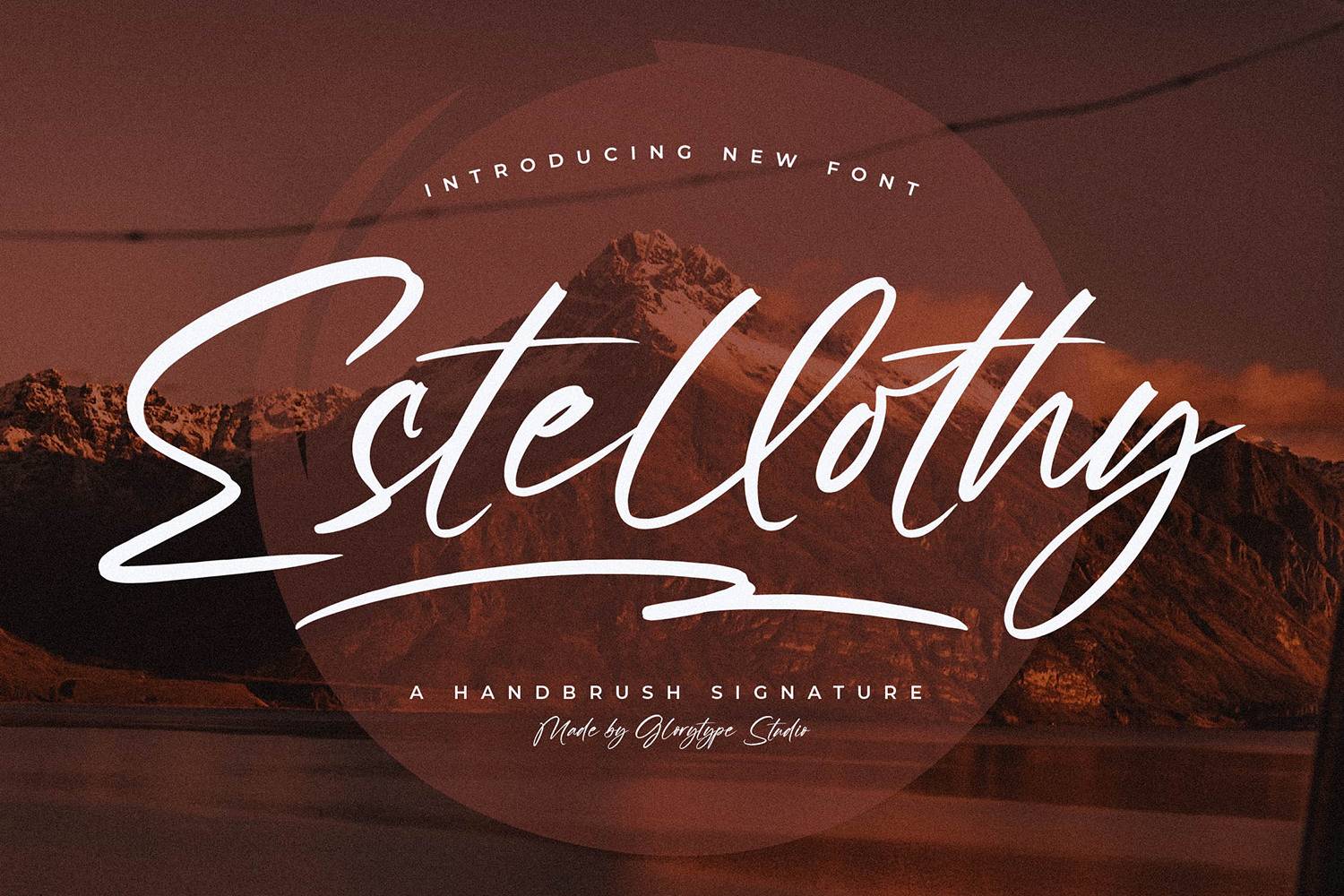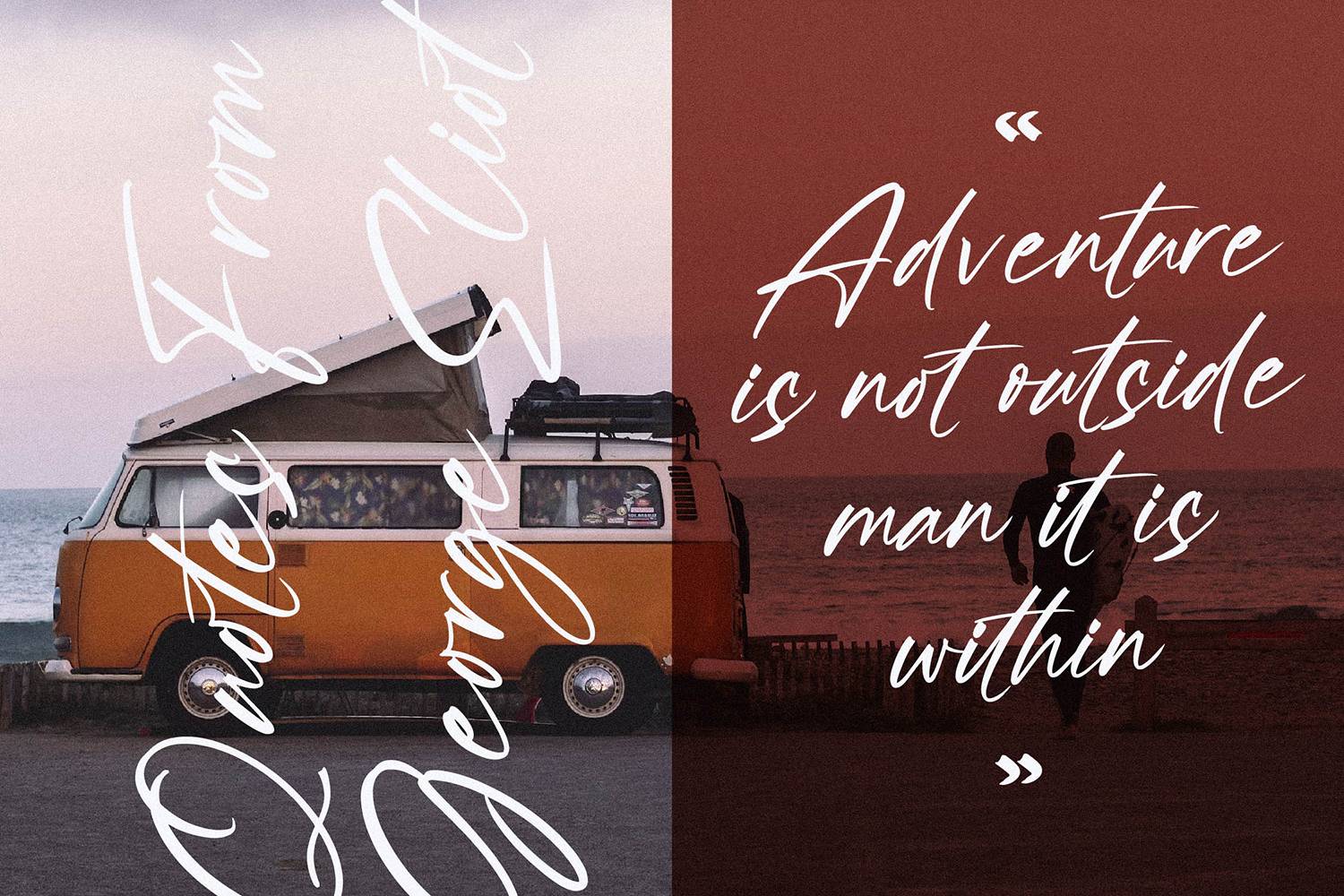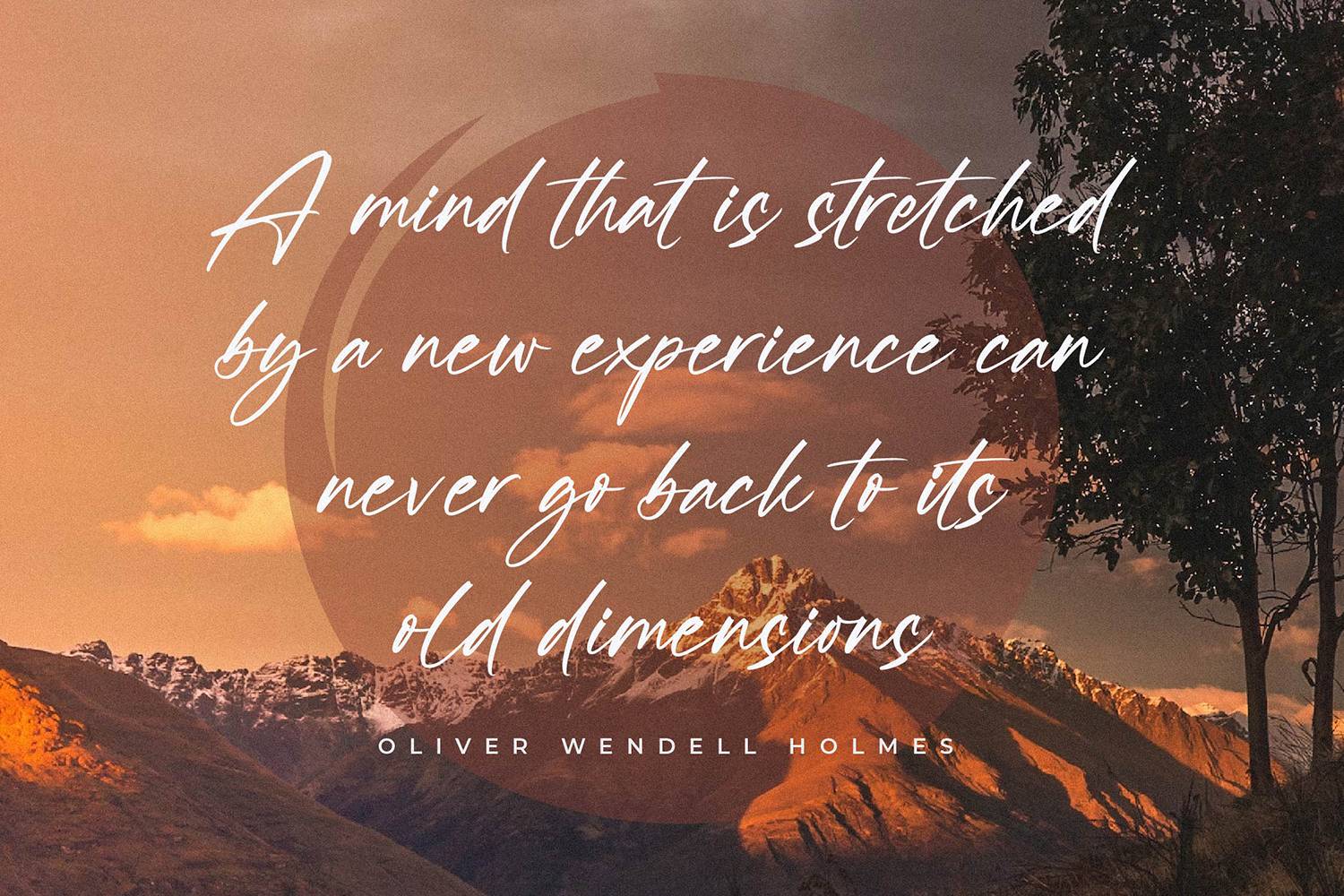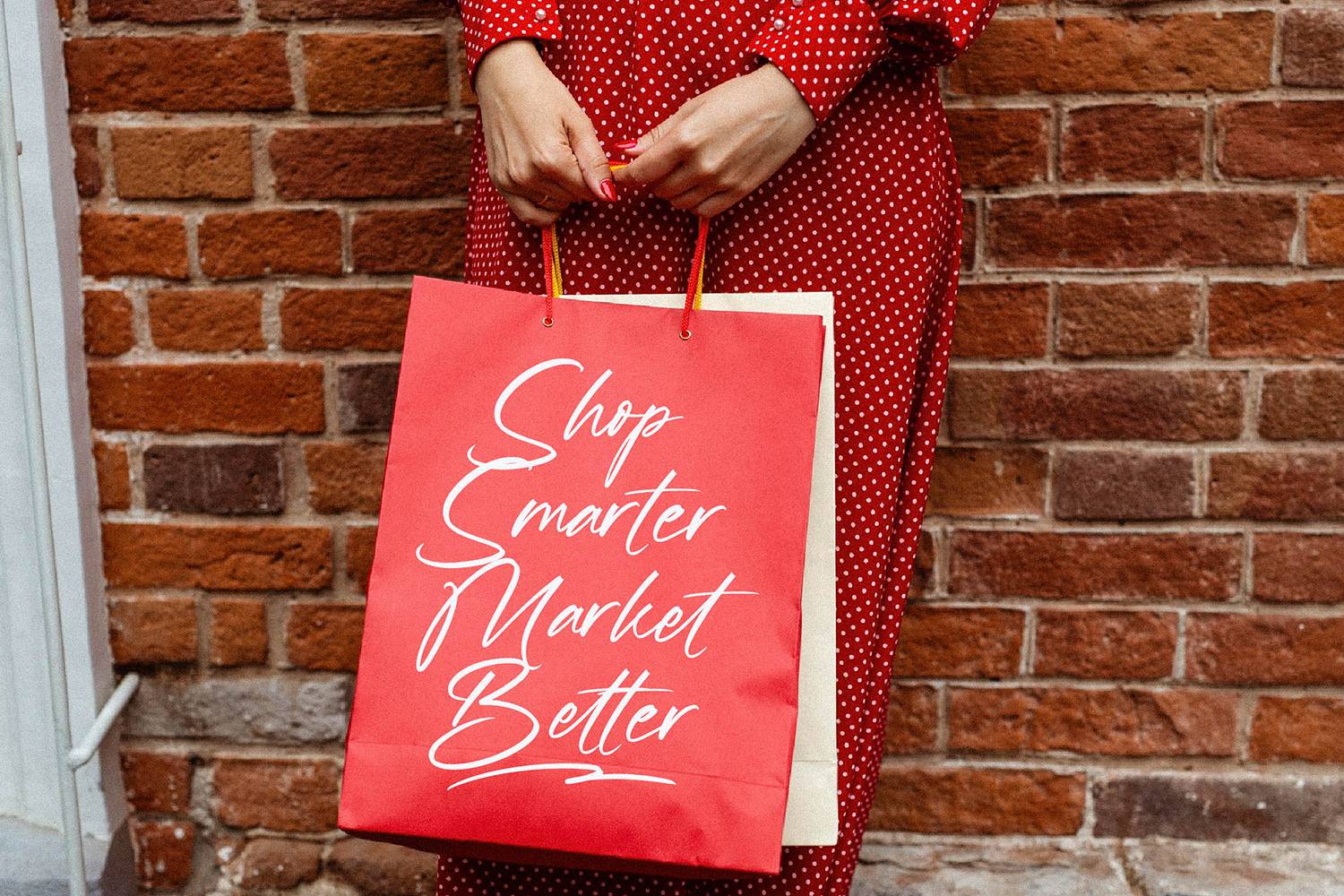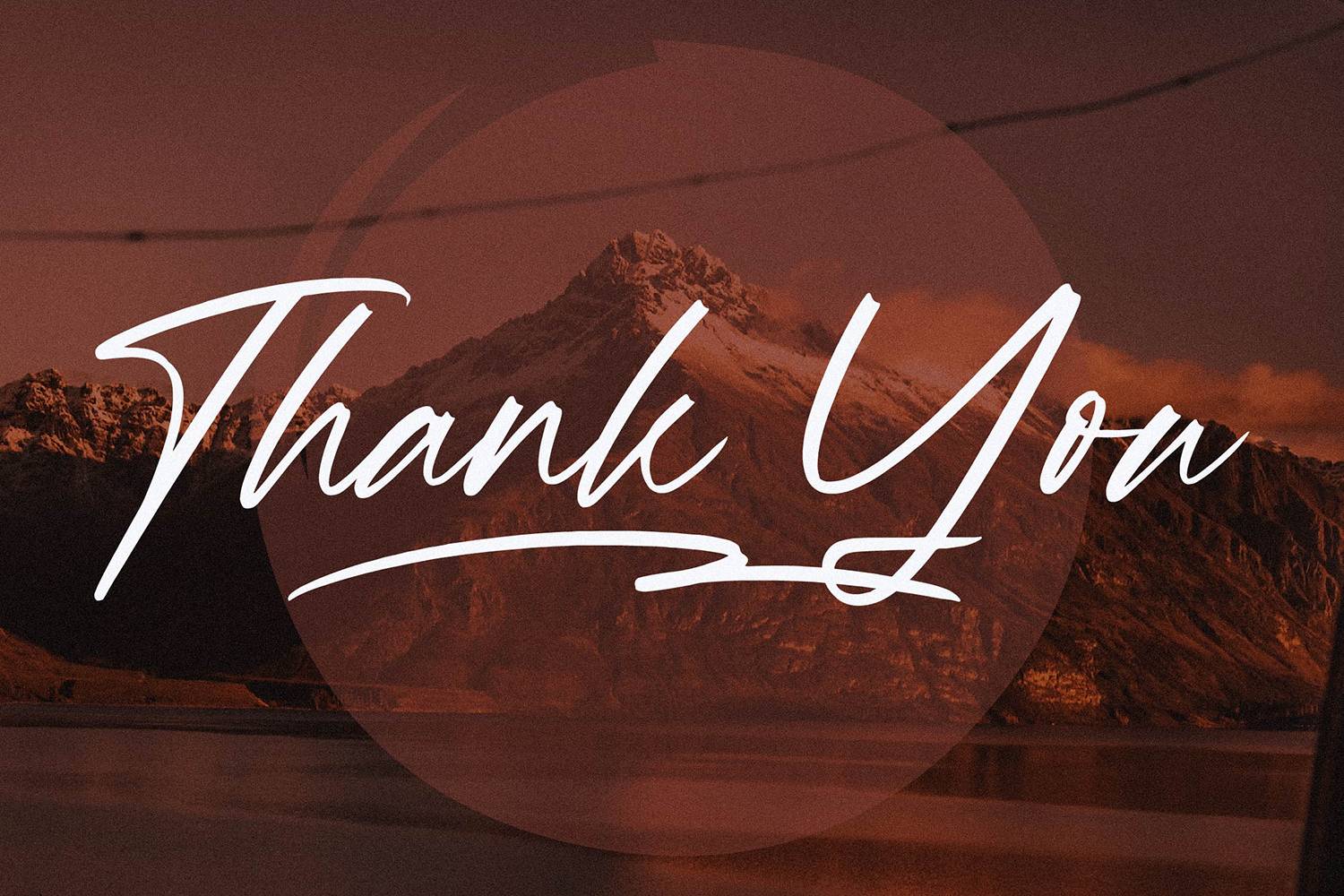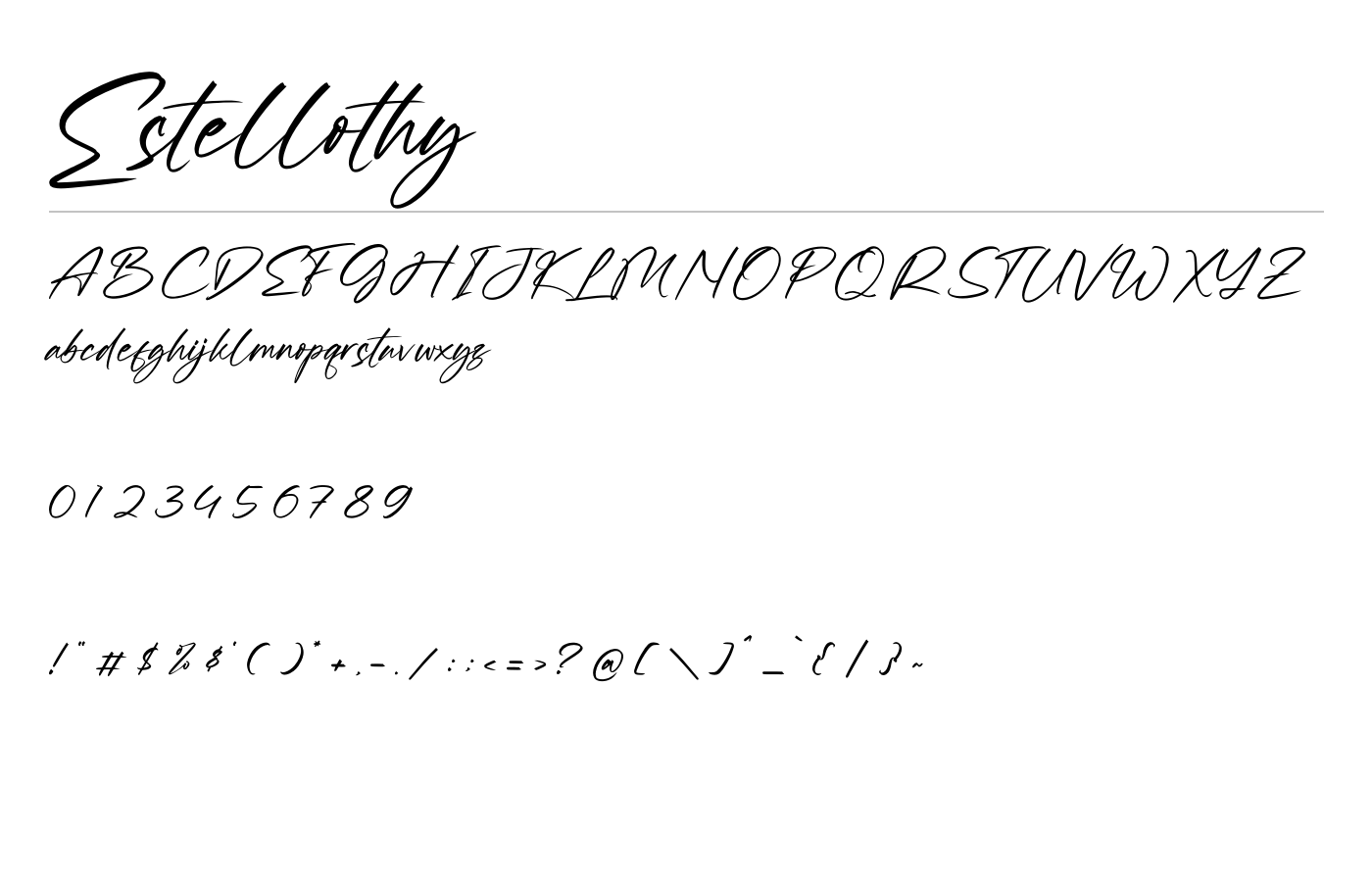
Estellothy is an elegant, modern script font with a handwritten feel characterized by fluid, delicate strokes and a slightly casual yet refined style. Its graceful letterforms, featuring a mix of connected and separate characters with moderate contrast, make it ideal for creative branding, invitations, and editorial designs that seek a personal, stylish touch. This font works best in logos, headlines, and decorative uses where a sophisticated, approachable look is desired.
Estellothy Font
About Estellothy Font